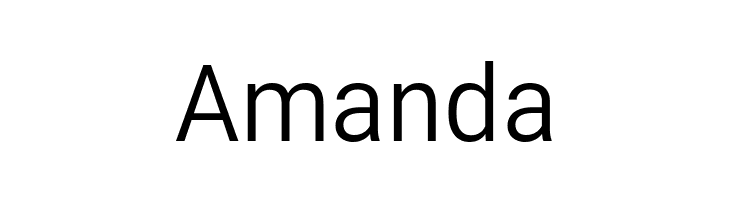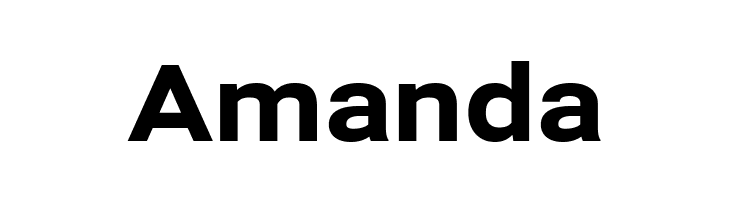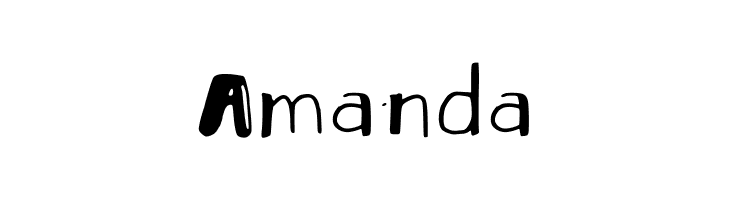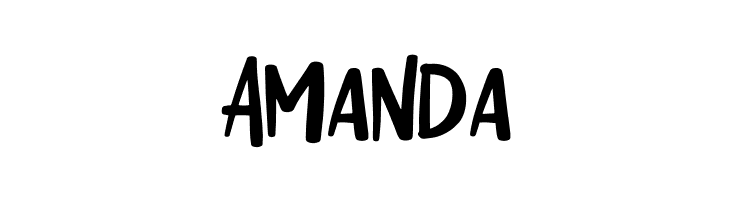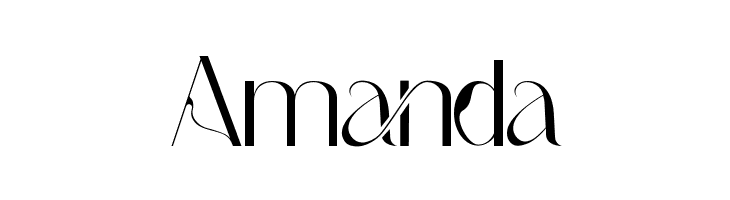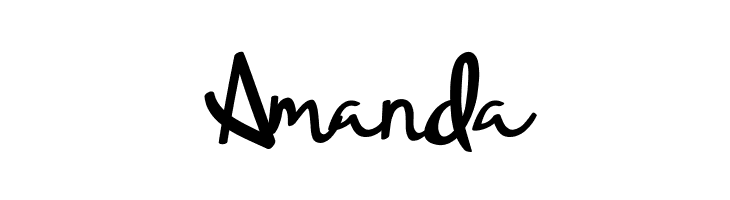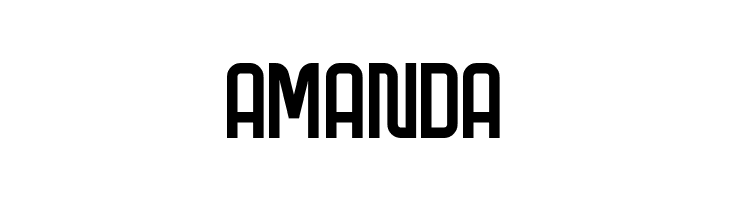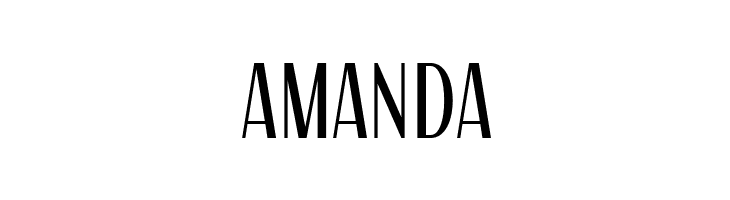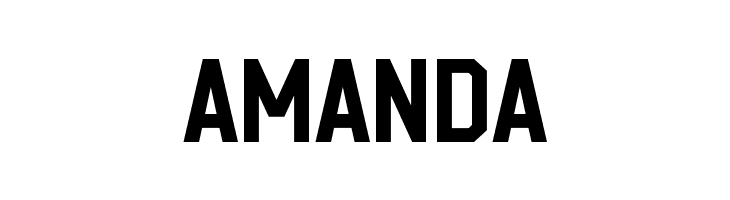
A bold, slightly italic font with rounded, dynamic characters.
A modern, slightly italic font with smooth curves and consistent stroke width.
A bold, dynamic font with rounded, smooth characters and a slight slant.
A serif font with a blend of classic elegance and modern playfulness.
A refined and elegant font with high contrast and slender, elongated characters.
A bold, handwritten font with playful, uneven strokes and a lively appearance.
A playful, hand-drawn font with bold, irregular strokes.
A bold, geometric font with strong, angular lines and a modern aesthetic.
A playful, bold font with a hand-drawn, whimsical style.
A playful and elegant script font with smooth, flowing curves.
A modern, elegant font with high contrast and flowing letterforms.
A bold, handwritten font with a playful and friendly style.
A playful, bold, and hand-drawn font with a whimsical style.
A playful, bold font with rounded, bubble-like characters.
Elegant handwritten script font.
A playful, handwritten font with smooth, rounded edges and a casual style.
A bold, decorative blackletter font with intricate and ornate letterforms.
A bold, modern font with thick, uniform strokes ideal for impactful headlines.
A bold, modern sans-serif font with a geometric and slightly condensed design.
A lively, dynamic handwritten script with fluid, connected strokes.
A bold, distressed font with a grunge aesthetic and chaotic embellishments.
A bold, distressed font with a grunge, rebellious style.
A dynamic, italicized font with a grunge, distressed style and sharp edges.
A bold, distressed font with a grungy, chaotic aesthetic.
A bold, italic, and distressed font with an expanded width and dynamic style.
A dynamic, italicized font with a distressed, high-contrast style.
A bold, italicized font with a distressed, grunge-like style.
A bold, distressed font with jagged, chaotic strokes and a grunge aesthetic.
A bold, shadowed font with rugged details and a three-dimensional effect.
A bold, italicized font with a shadow effect and dynamic, decorative style.
A lively, handwritten font with playful and irregular strokes.
A modern, clean sans-serif font with balanced spacing and consistent stroke width.
A bold, modern sans-serif typeface with clean lines and strong presence.